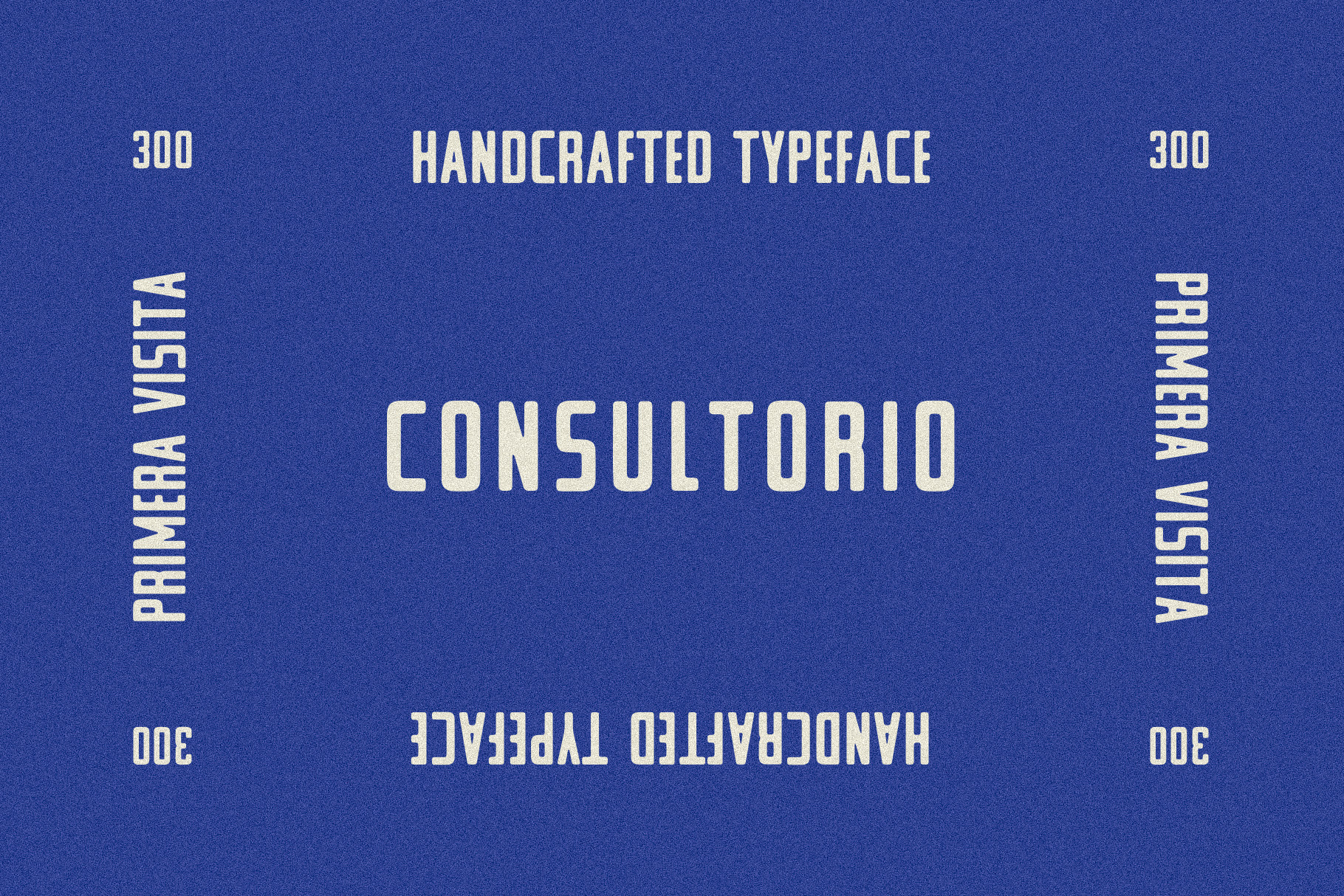
CONSULTORIO Typeface
Consultorio is inspired by a stencil sign discovered in the historic center of Oaxaca, Mexico. In this colonial city, colorful facades, cobblestone streets and aged storefronts still shape the visual landscape, where old signage can still be found throughout the streets.
The original lettering from a small medical practice became the starting point for this typeface. The shapes were reworked and refined into a modern font designed for contemporary use while keeping the spirit of the original.
Consultorio is a carefully crafted all caps font including numbers and punctuation. It works perfectly for branding, packaging, posters, logos, signage and editorial design, giving projects a distinctive vintage character while remaining clean and versatile for modern design work.